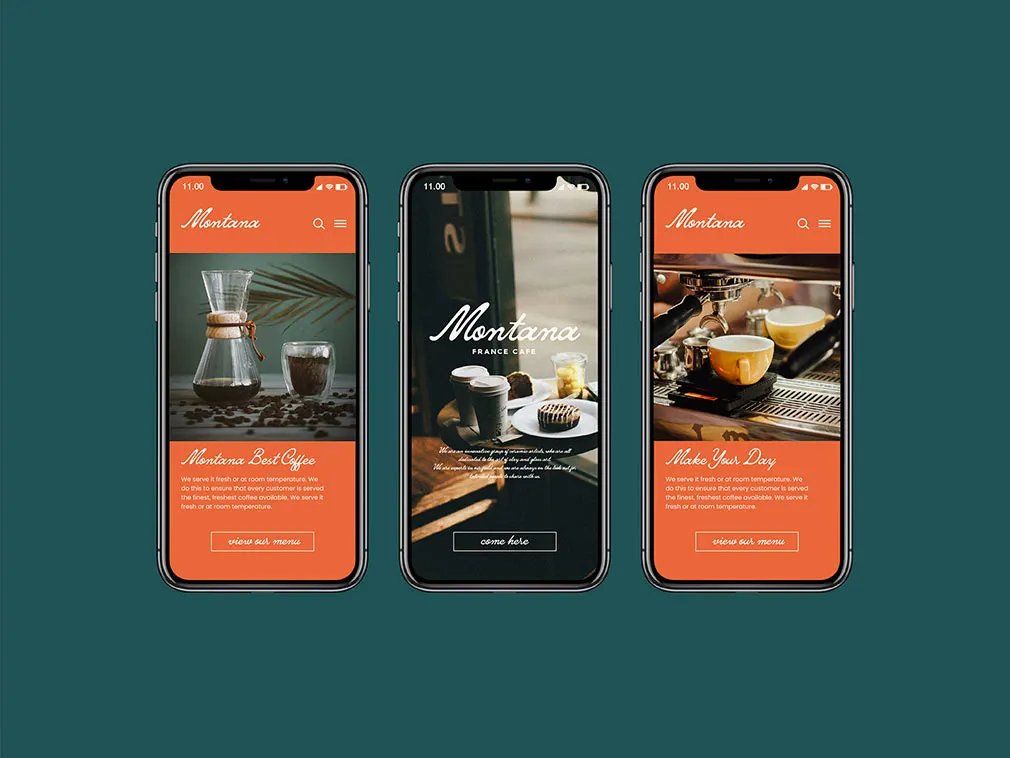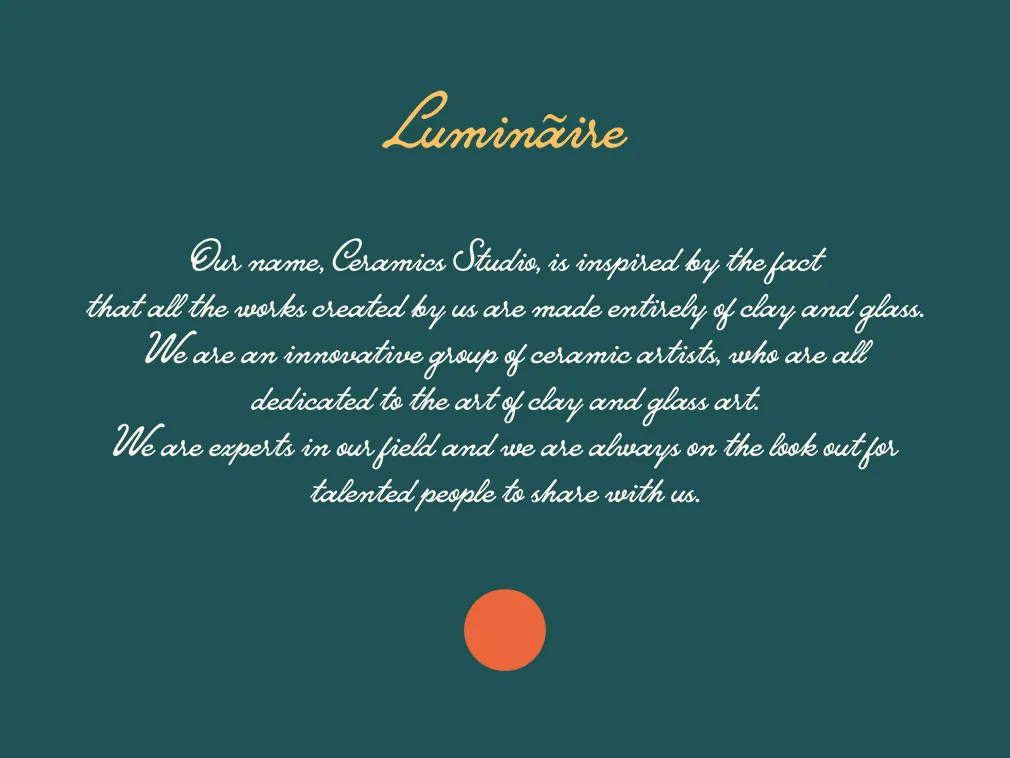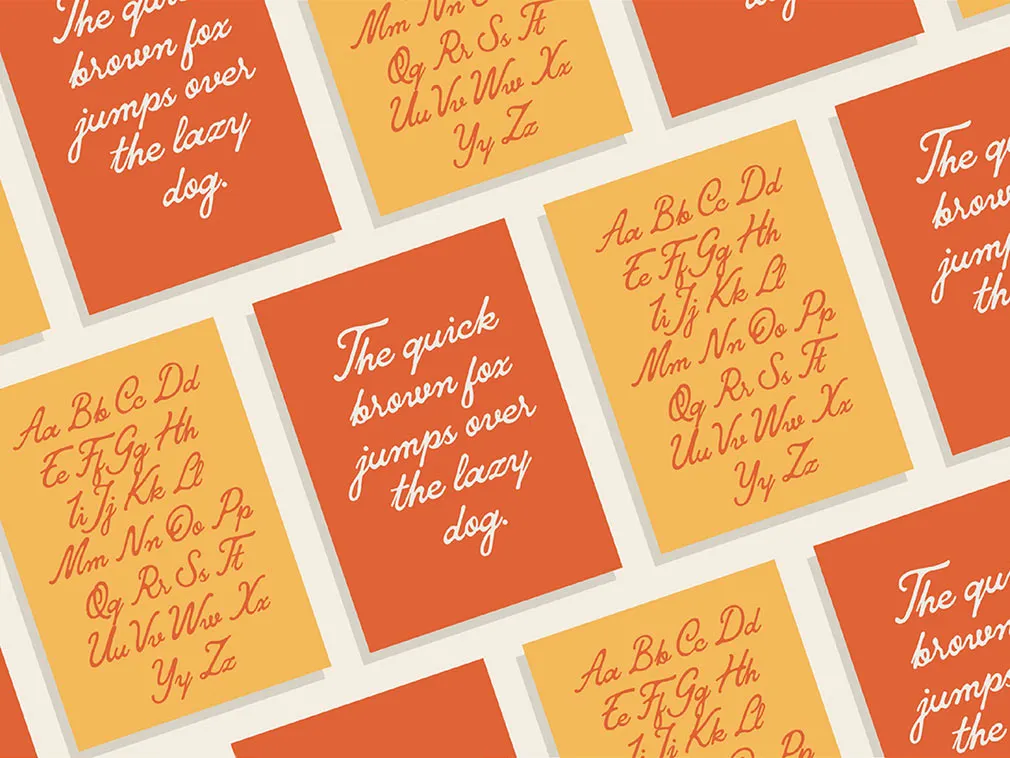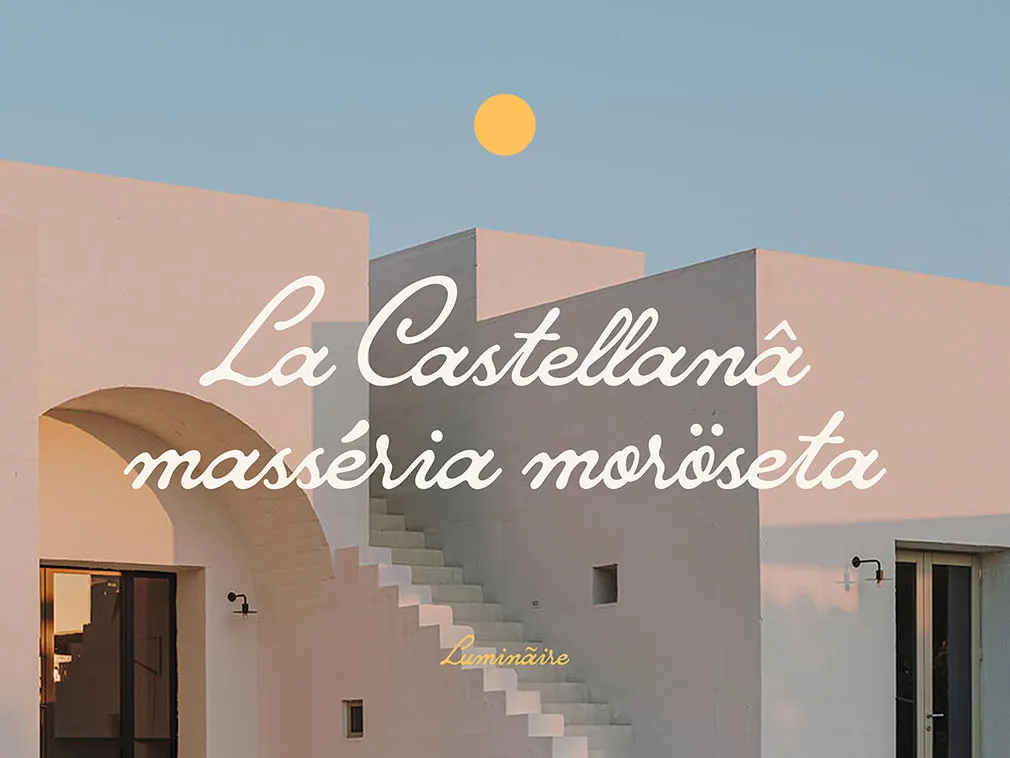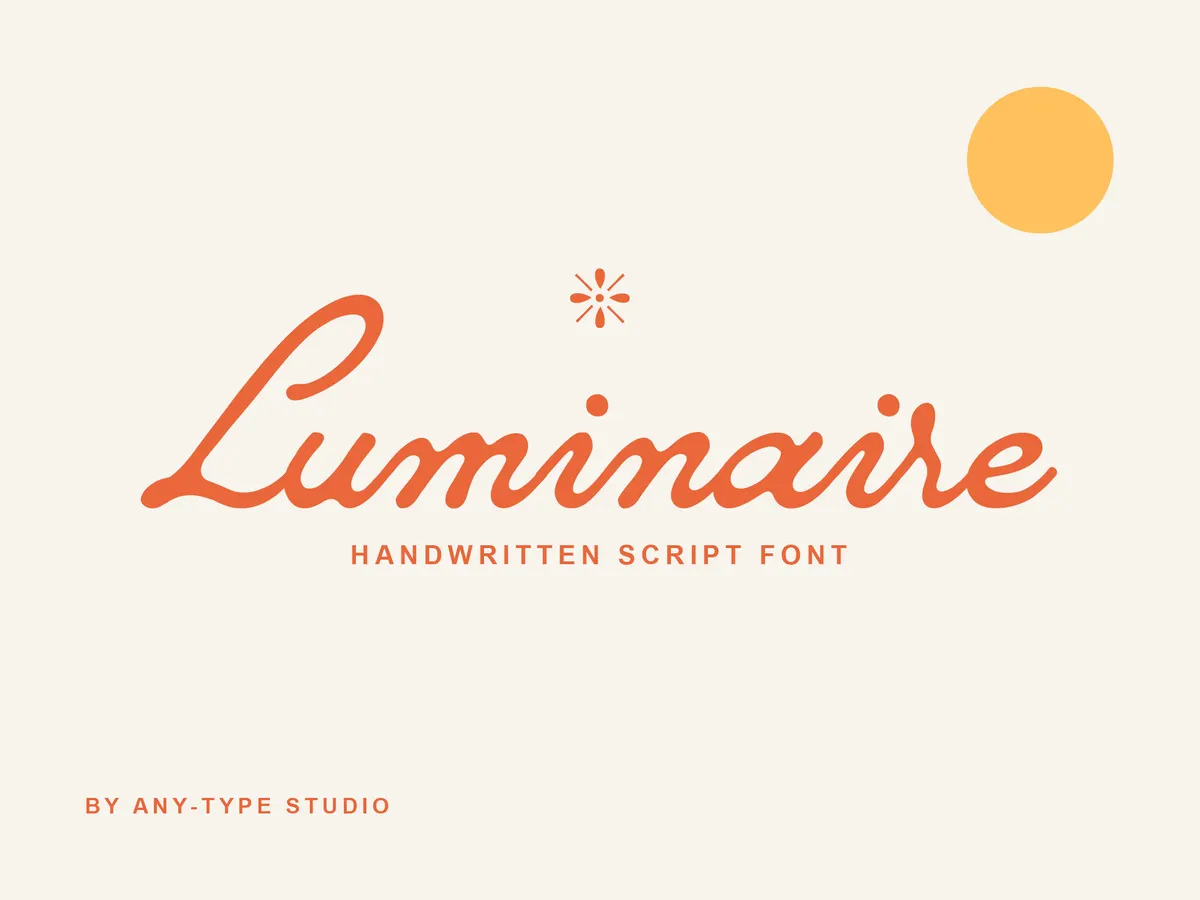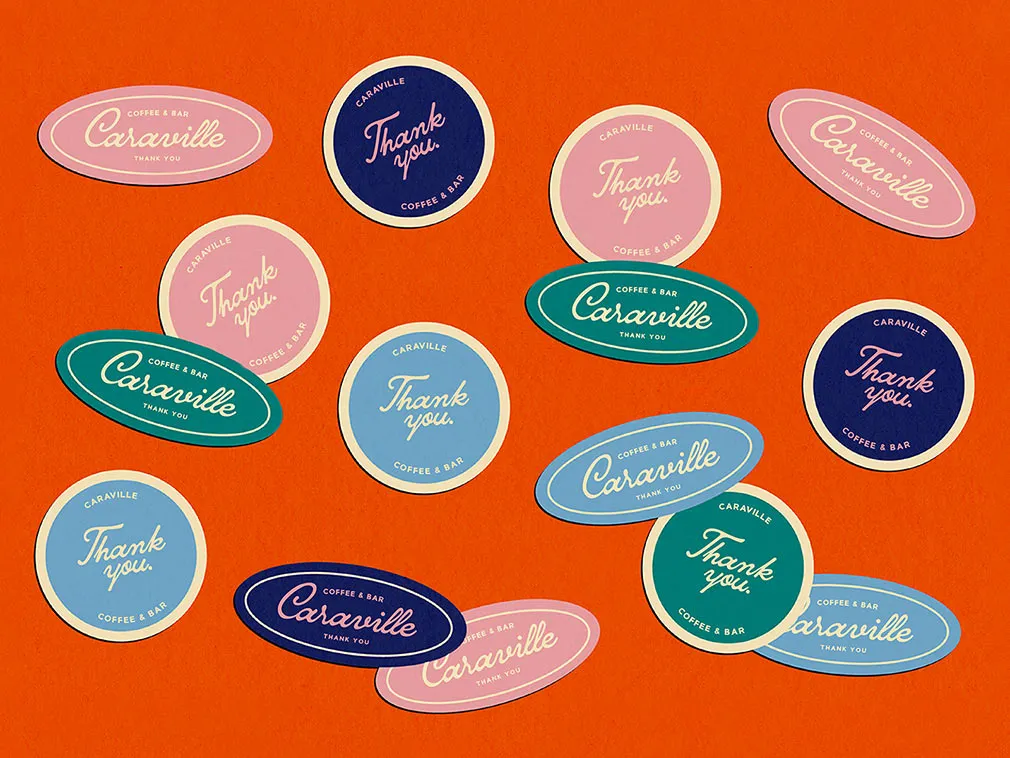
Luminaire Script Font
Smooth curves, slightly melted on the edges by the warmth this handwritten font radiates. It also makes you think of summer, fancy chocolate package and maybe even retro t-shirts!Luminaire Script is a casual script font inspired by cursive handwriting, pop and urban cultures, united together. This script is great for your next creative project such as logotype, printed quotes, invitations, cards, product packaging, headers, letterhead, poster, apparel design, label, and more. Luminaire comes with the Opentype, Truetype and web font format. You'll find uppercase, lowercase, numerals, punctuations and multilingual support given in the package to let you customize your designs.